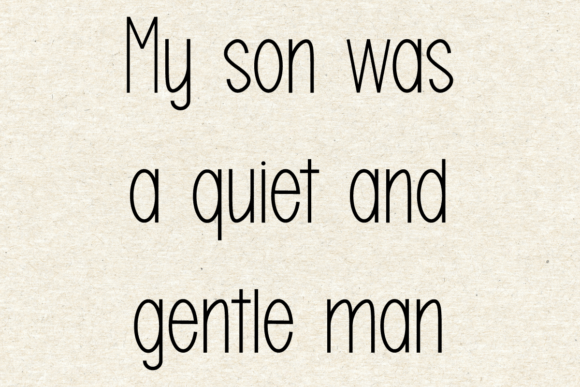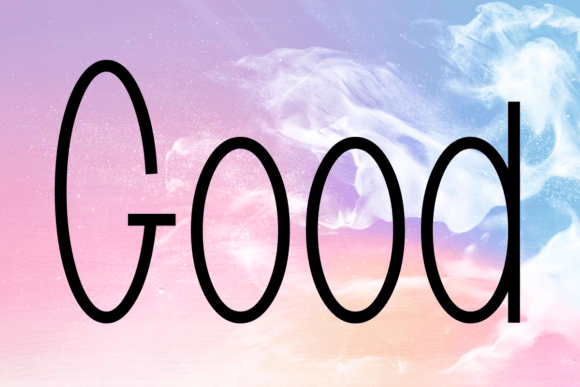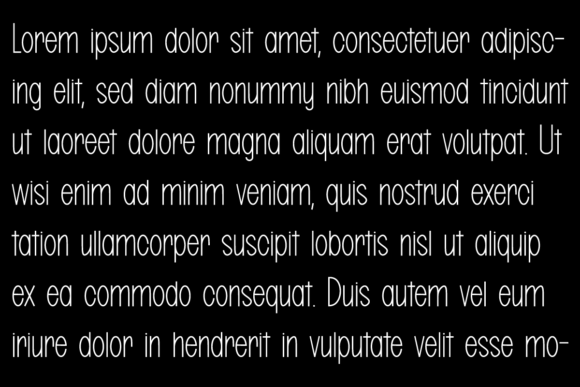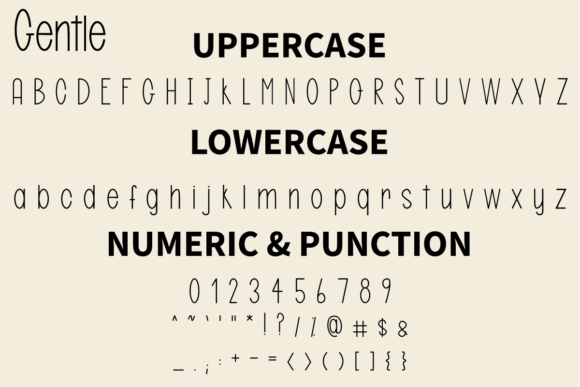
Introducing Gentle Font: The Simple yet Charming Handwritten Font
Are you looking for a font that can add a touch of warmth and personality to your designs? Look no further than Gentle Font, a simple and friendly handwritten font that’s perfect for a wide range of creative projects. With its whimsical and quirky charm, Gentle Font is sure to brighten up your designs and leave a lasting impression on your audience.
The Characteristics of Gentle Font
Gentle Font is a beautifully crafted handwritten font that’s characterized by its simplicity, friendliness, and approachability. Its gentle curves and flowing lines give it a soft, rounded appearance that’s both soothing and inviting. This font is perfect for designers who want to add a personal touch to their work without overpowering the content.
The Versatility of Gentle Font
One of the best things about Gentle Font is its versatility. This font can be used confidently in a wide range of design projects, from logos and wedding invitations to quotes, advertisements, and more. Whether you’re working on a print project, a digital design, or a craft project, Gentle Font is sure to fit right in.
Perfect for Logos
Gentle Font is an excellent choice for logos, particularly for businesses that want to convey a sense of warmth and approachability. Its simple yet distinctive design makes it easy to recognize and remember, while its friendly feel helps to create a positive association with your brand.
Ideal for Wedding Invitations
Wedding invitations are another area where Gentle Font truly shines. Its elegant yet informal design makes it perfect for couples who want to set the tone for a romantic and intimate celebration. Whether you’re designing a formal wedding invitation or a more casual save-the-date card, Gentle Font is sure to add a touch of charm and sophistication.
Great for Quotes and Advertisements
Gentle Font is also an excellent choice for quotes and advertisements. Its clear, readable design makes it easy to understand and appreciate the message, while its whimsical charm helps to grab the reader’s attention and hold it. Whether you’re designing a poster, a flyer, or a social media graphic, Gentle Font is sure to make your message stand out.
Why Choose Gentle Font?
So why choose Gentle Font over other fonts? Here are just a few reasons why designers and crafters love this charming handwritten font:
- Unique and distinctive design: Gentle Font has a one-of-a-kind design that’s sure to set your work apart from the crowd.
- Easy to read and understand: Despite its whimsical charm, Gentle Font is incredibly clear and readable, making it perfect for designs where the message is key.
- Versatile and adaptable: Gentle Font can be used in a wide range of design projects, from logos and wedding invitations to quotes and advertisements.
- Warm and inviting feel: Gentle Font has a friendly, approachable feel that’s sure to make your designs feel more welcoming and engaging.
Tips for Using Gentle Font
Here are a few tips for getting the most out of Gentle Font:
- Experiment with different sizes and colors: Gentle Font looks great in a wide range of sizes and colors, so don’t be afraid to experiment and find the combination that works best for your design.
- Pair it with other fonts: Gentle Font pairs beautifully with other fonts, so consider combining it with a bold or serif font to add contrast and interest to your design.
- Use it consistently: To get the most out of Gentle Font, use it consistently throughout your design project. This will help to create a cohesive look and feel that’s sure to engage your audience.
In conclusion, Gentle Font is a simple yet charming handwritten font that’s perfect for designers and crafters who want to add a touch of warmth and personality to their work. With its whimsical charm, versatility, and easy-to-read design, Gentle Font is sure to brighten up your designs and leave a lasting impression on your audience. So why not give it a try and see the difference it can make?